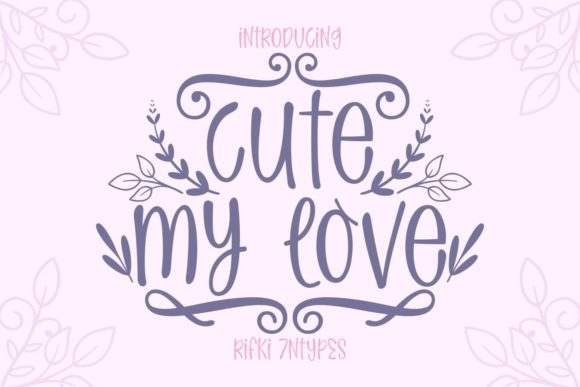
Cute My Love Font: Elevate Your Creative Projects with a Stunning Handwritten Style
In the world of typography, fonts play a crucial role in conveying emotions and setting the tone for creative projects. A well-chosen font can make all the difference in capturing the audience’s attention and leaving a lasting impression. If you’re looking for a font that exudes love, warmth, and a touch of elegance, look no further than Cute My Love Font. In this article, we’ll explore the features and benefits of this beautiful handwritten font and how it can elevate your creative projects.
What is Cute My Love Font?
Cute My Love Font is an absolutely stunning handwritten font that has a lovely, natural accent and a stylish, cursive flair. Its unique and elegant design makes it perfect for a wide range of creative projects, from romantic getaways and wedding invitations to branding and marketing materials. This font is designed to add a personal touch to your work, making it stand out from the crowd.
Key Features of Cute My Love Font
- Handwritten style: Cute My Love Font boasts a beautiful, handwritten style that adds a personal and emotional touch to your projects.
- Natural accent: The font features a lovely, natural accent that gives it a unique and authentic feel.
- Cursive flair: The stylish, cursive flair of Cute My Love Font adds a touch of elegance and sophistication to your work.
- Versatile: This font is suitable for a wide range of creative projects, from digital and print materials to branding and marketing.
Benefits of Using Cute My Love Font
Using Cute My Love Font in your creative projects offers numerous benefits. Here are a few:
- Emotional connection: The handwritten style and natural accent of Cute My Love Font help create an emotional connection with your audience.
- Unique and distinctive: This font’s elegant design and cursive flair make it stand out from more traditional fonts, giving your work a unique and distinctive look.
- Easy to read: Despite its elegant and cursive design, Cute My Love Font remains easy to read, making it perfect for body text and headings.
- Time-saving: With Cute My Love Font, you can add a professional and polished touch to your work without spending hours designing a custom font.
Examples of Cute My Love Font in Use
Cute My Love Font is versatile and can be used in a variety of creative projects. Here are some examples:
- Wedding invitations: The elegant and cursive design of Cute My Love Font makes it perfect for wedding invitations, save-the-dates, and other wedding-related materials.
- Branding and marketing: This font is ideal for branding and marketing materials, such as logos, business cards, and social media graphics.
- Digital and print materials: Cute My Love Font can be used in digital and print materials, including brochures, flyers, and e-books.
- Art and craft projects: This font is also suitable for art and craft projects, such as handmade cards, scrapbooking, and DIY crafts.
Tips and Tricks for Using Cute My Love Font
Here are some tips and tricks for getting the most out of Cute My Love Font:
- Pair with complementary fonts: Pair Cute My Love Font with complementary fonts to create a unique and visually appealing combination.
- Experiment with colors: Experiment with different colors to find the perfect match for your project.
- Adjust font sizes: Adjust font sizes to create visual hierarchy and emphasize important information.
- Use font variations: Use font variations, such as bold and italic, to add emphasis and create visual interest.
Font Specifications
Here are the specifications for Cute My Love Font:
- Font type: Handwritten, cursive
- Font style: Elegant, stylish
- Font size: Available in various font sizes
- Language support: Supports multiple languages
Cute My Love Font is a stunning handwritten font that can elevate the look of any creative project. With its lovely, natural accent and stylish, cursive flair, this font is perfect for a wide range of applications, from romantic getaways and wedding invitations to branding and marketing materials. By following the tips and tricks outlined in this article, you can get the most out of Cute My Love Font and create beautiful, professional-looking work.